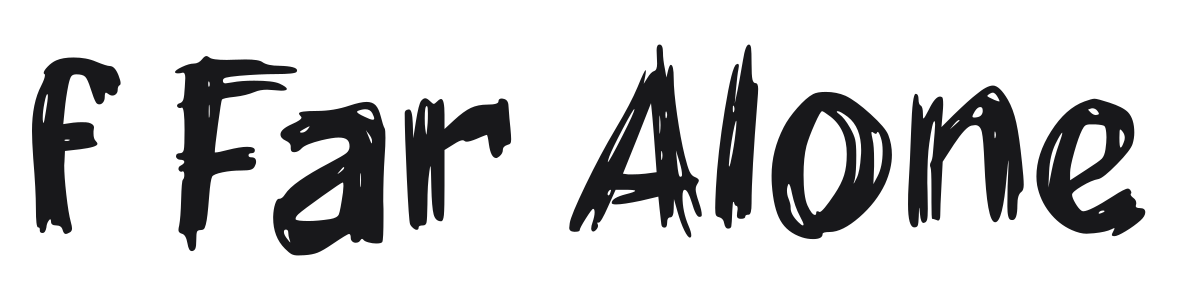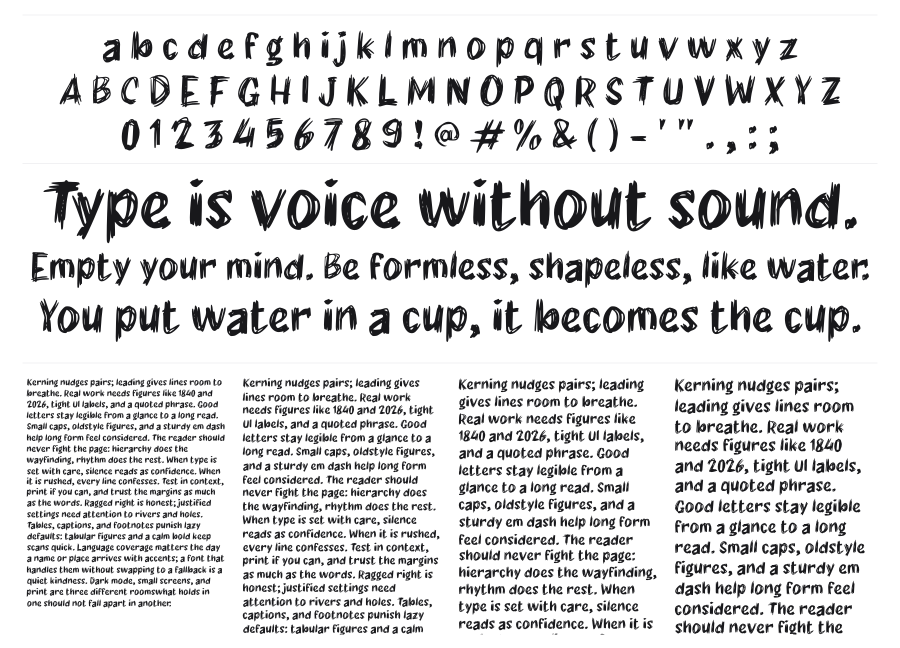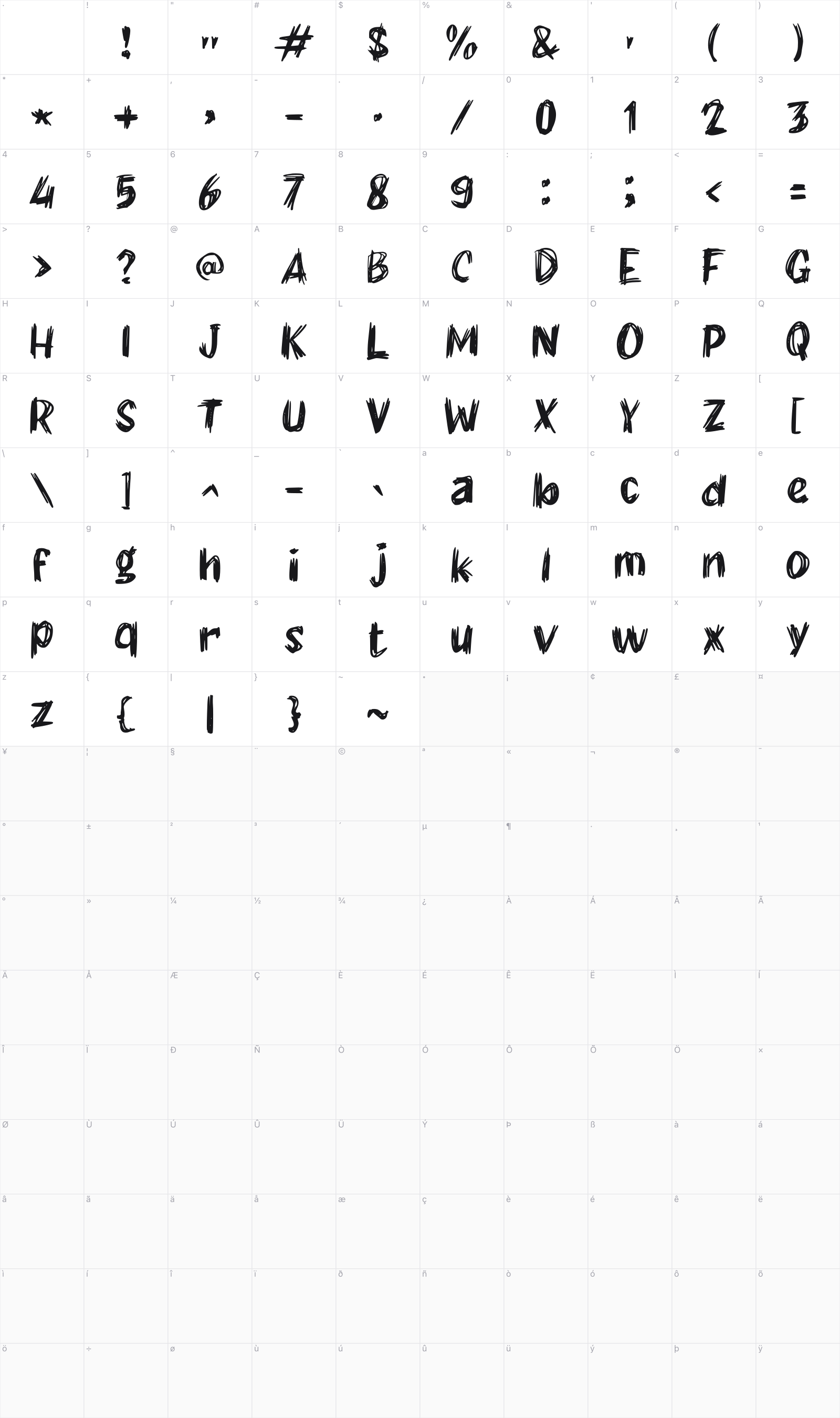
f Far Alone
Far Alone is a rough hand-scrawled grunge font with thick, frayed strokes that look like they were scratched out in a hurry with a worn marker. The irregular edges and uneven baseline give each character a distinctly raw, spontaneous quality. A strong pick for anything that needs attitude over polish.